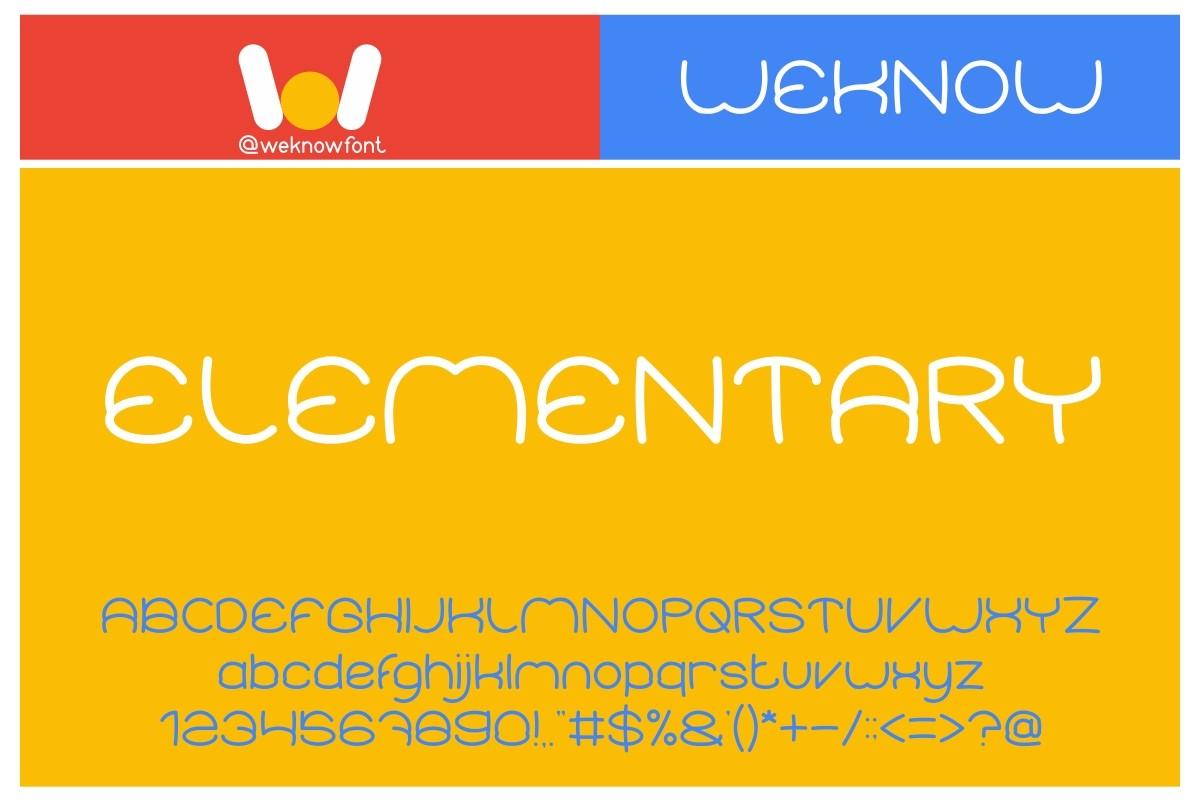
Elementary is a cute and friendly display font. It will fit perfectly on each of your designs.
Have fun with this beautiful font and explore its endless variations.